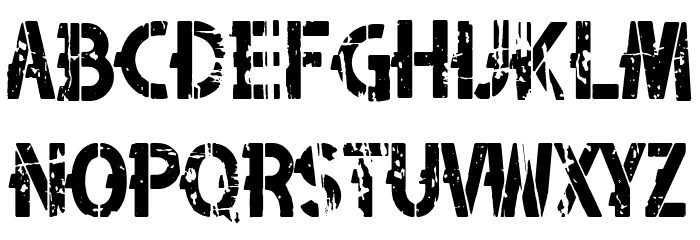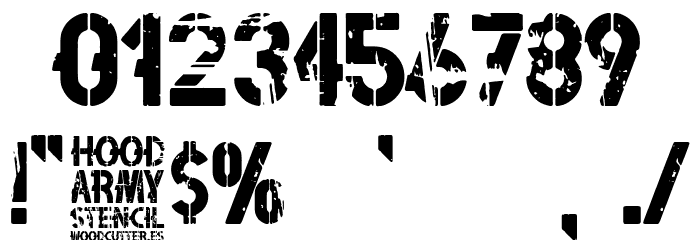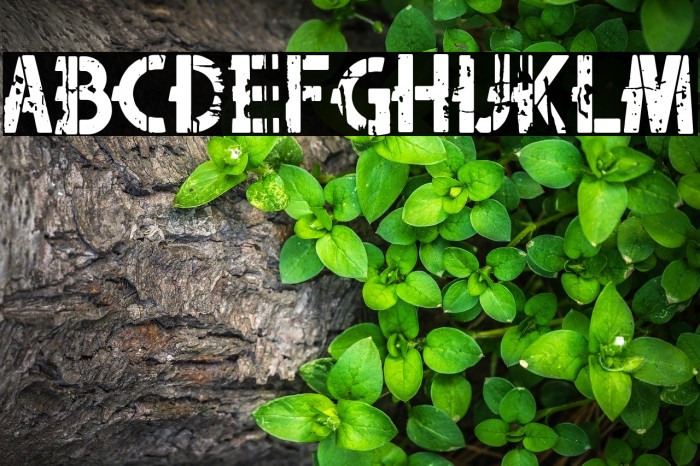
Hood Army Stencil Font
This font features a bold, distressed stencil style reminiscent of military or industrial themes. The characters are robust and display a weathered, rugged appearance with intentional imperfections and breaks in the strokes, giving it an authentic, worn-out look. The uppercase letters are prominent, and the numbers and special characters maintain the same distressed aesthetic. This design is ideal for projects that require a strong, impactful visual statement, such as posters, banners, or branding that seeks to convey toughness or resilience.
A bold, distressed stencil font with a rugged, military-inspired look.
- Font: Hood Army Stencil
- Proposed Projects: Ideal for military-themed designs, industrial branding, posters, and any project needing a strong, rugged aesthetic.